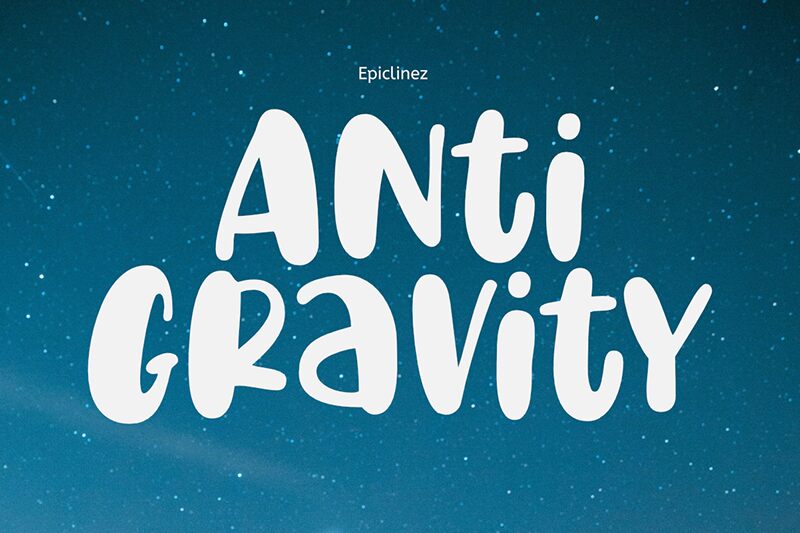
Anti Gravity Demo
Anti Gravity font by Epiclinez is a casual cartoon display font, packed with energy and expression. The characters are bold with handwritten shapes where each letter has a different eccentric twist. This modern typeface spreads a vibe that’s friendly and easily approachable to readers of many ages.
It is natural that this free font presents itself as suitable for children-related projects such as books, games, toys, or magazines. It can also be used for other printed designs like packaging and posters or even in the digital world across websites, apps, animated videos, and social media.